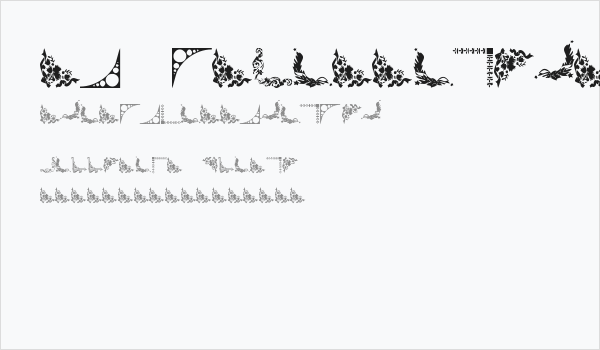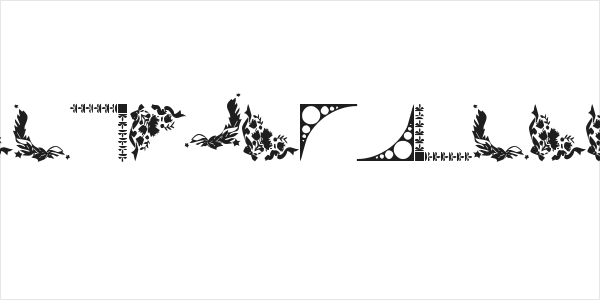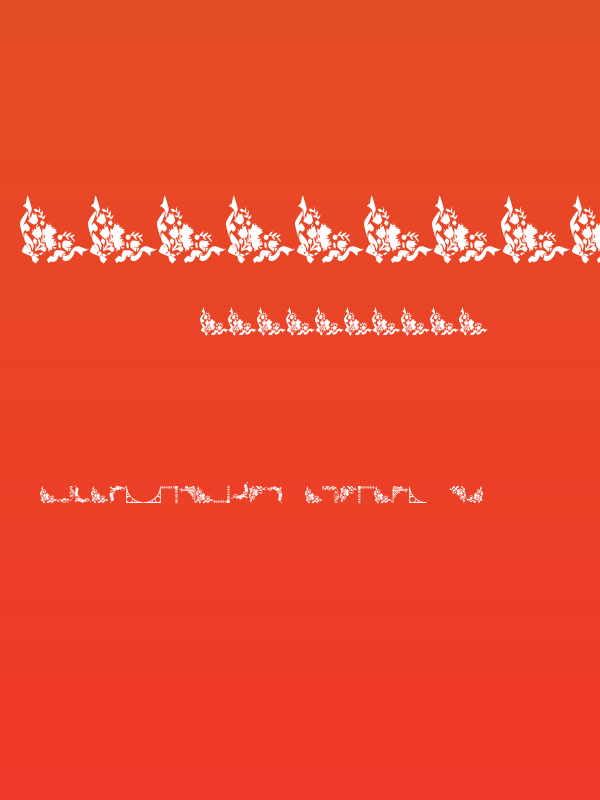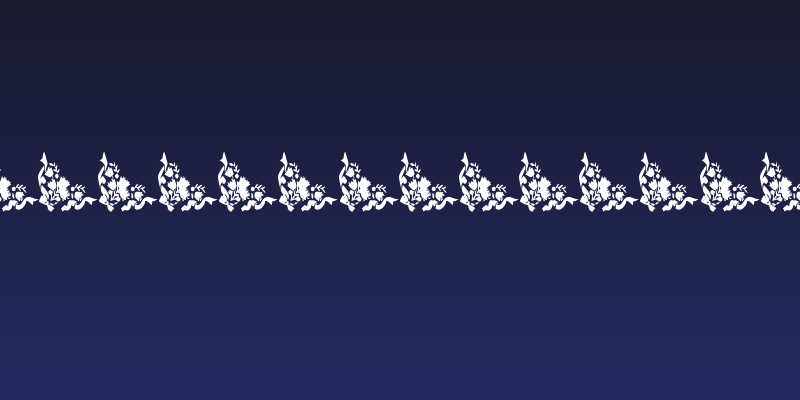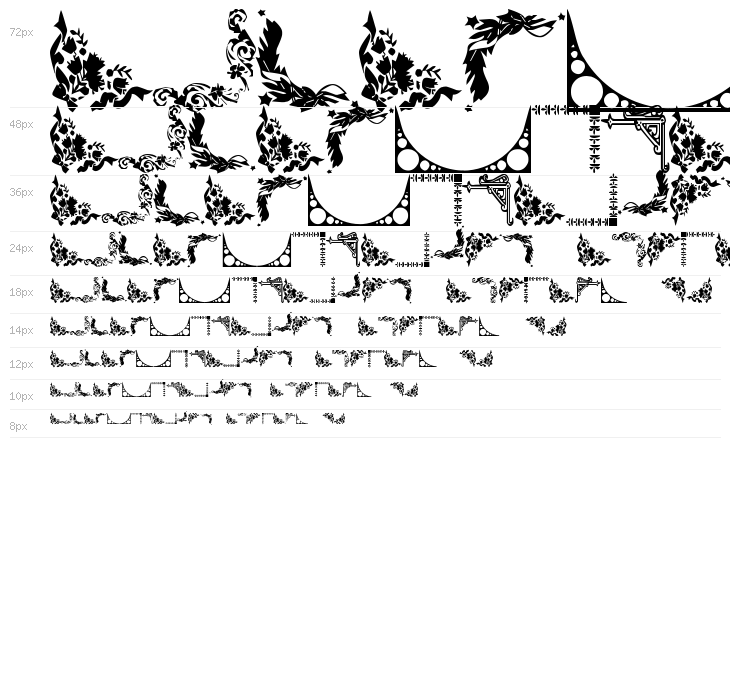
Vintage Decorative Corners 3 Font
Vintage Decorative Corners 3 Description
Highly ornate, decorative corner and border elements featuring intricate floral and scrollwork motifs, reminiscent of vintage or Victorian design. The glyphs are not standard alphanumeric characters but rather ornamental shapes intended for embellishing layouts.
| Overall Style | Vintage, Decorative |
| Use Case | Borders, Corners, Frames, Decorative accents |
| Proposed Projects | Invitations, certificates, book covers, vintage posters, decorative frames, scrapbooking. |